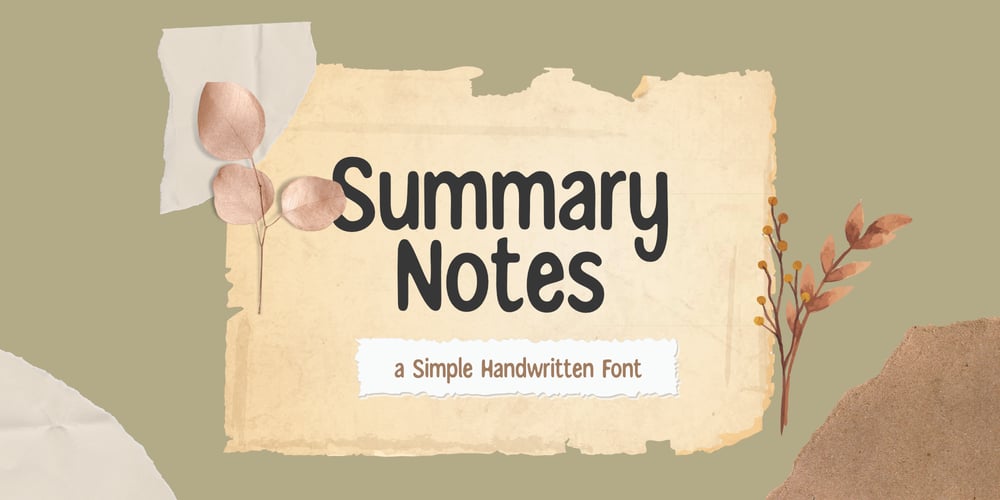
Summary Notes Font Family was designed by Ali Hamidi and published by Ali Hamidi. Summary Notes contains 1 styles and family package options. Summary Notes is a simple and neat handwritten font ready to impress your audience and make your branding shine. Make your projects stand out with this humble and wonderful font!